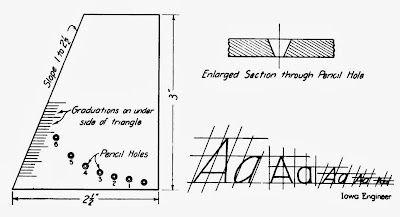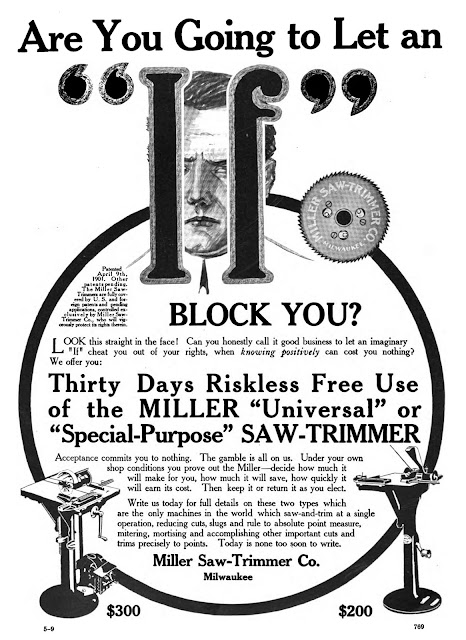
Lettering: 100 Ampersands, Part 1
The Printer and Bookmaker
July 1898
Some Queer Ampersands.
What is the legitimate form of the ampersand? Ringwalt’s American Encyclopaedia of Printing says that it was not adopted in its present form until about 1750. It was originally the Latin et surmounted by a ligature, and the type founders give it to us in Roman in this form (&), and in old-style italic in this form {&). There is a wide difference between the two, and there exists a still wider difference in various display types, while the sign painter takes all sorts of liberties with the figure. The word is a contraction of “and per se and,” signifying “and by itself and.” It is occasionally spelled ampersand, and is found in old books in the form ampusand, amperse-and, ampassyand, amperzed, etc. Having for many years received recognition in primers as a tailend to the alphabet, and being apparently of fixed use in the language, it becomes interesting to discover what forms it has taken on in arriving at its present shape, if indeed it have any present legitimate shape.
From the Railroad Car Journal we unexpectedly find light on the subject, through a contribution from Warner Bailey, whose connection with the Boston and Maine Railroad has caused him to travel over most of the territory between the States of Maine on the East, Kentucky on the South, and Illinois on the West. During these trips Mr. Bailey made it a pastime to copy all the forms of ampersands he saw painted on railway cars. He discovered no less than one hundred and forty different styles, of which there are reproduced in the accompanying illustration one hundred of the most peculiar. They are certainly worth studying as curiosities, and it is difficult to judge by what mental process some of the more outrageous forms were arrived at by the paint-brush artists.
Creator: O.A. Olson, Ames Lettering Guide Inventor
Oscar Anton Olson was born in Norway on December 12, 1883. Olson’s birthplace was found on census records and his birth date was recorded on his World War I draft card. A record of his arrival in the United States has not been found. Who’s Who in American Education (1956) said he was the son of Nels Edward and Louise Annette. According to the Naturalization Record Index at Ancestry.com, Olson became a citizen on October 27, 1884.
In the 1900 U.S. Federal Census, Olson was a servant in the Mickelson household, which consisted of the parents, their four children and a female servant. Mr. Mickelson was a dealer in dry goods and groceries. Apparently, Olson worked for him as a salesman.
Olson attended Iowa State College. The photograph of Olson (left) is from the 1907 yearbook, The Bomb. He graduated in 1908.
Olson has not been found in the 1910 census. Who’s Who in American Education said he married Goldie Payne of Lincoln, Nebraska, on January 23, 1911.
The Iowa State College of Agriculture and Mechanic Arts 1914 named the graduates of June 1914. Olson received a degree in mechanical engineering. According to Who’s Who in American Education, Olson received his masters degree.
The 1915 Iowa State Census recorded Olson and his wife in Ames. He was a draftsman who had four years of high school and four years of college. And he was a Lutheran.
The Iowa Official Register for the Years 1915–1916 had information on Iowa State College. In the category of instructors was “Oscar Anton Olson, B.M.E., Mechanical Engineering.” The State of Iowa 1916, Report of the Iowa State Board of Education said: “Oscar Anton Olson from Instructor to Assistant Professor of Mechanical Engineering.”
On September 12, 1918, Olson signed his World War I draft card. He was an assistant professor in mechanical engineering at Iowa State College. Olson and his wife, Goldie, resided at 617 Clark Avenue in Ames, Iowa. He was described as medium height and build, with brown eyes and hair.
Olson was at the same address in the 1920 census. His occupation was college teacher and he had a four-year-old daughter, Louise.
Five years later, the Iowa state census listed Olson, his wife, two daughters and mother-in-law at 706 Wilson in Ames.
All of them were found in the 1930 census in Ames at a different address, 712 Tenth Street. Olson continued as a college teacher. The 1936 Ames city directory said Olson was the acting head and associate Professor of Engineering Drawing at Iowa Sate College.
The photograph of Olson (above) is from the 1938 Iowa State College yearbook, The Bomb.
Olson’s address was unchanged in the 1940 census. Olson’s job was drawing engineer at the state college. He retired in 1948.
According to the Social Security Death Index, Olson passed away in March 1971. His last known residence was Ankeny, Iowa.
Engineering Design Graphics Journal (1971) reprinted the following article from the Ames Daily Tribune, March 18, 1971.
“One of the many reasons the name ‘Ames’ is known far and wide is a little device developed by O.A. Olson. Called by him the ‘Ames Lettering Guide’ the small instrument probably has been used by nearly every aspiring engineer or draftsman who was ever enrolled in a mechanical drawing class.
“Simple in its design, the device allowed the draftsman to put precisely-spaced lines on his drawing as a guide to the lettering required to identify various parts and the plate itself. For more than half a century, Mr. Olson’s invention has been in widespread general use.
“For many years, the manufacture of the lettering guide was carried on in the basement of his home, and the work of assembling, packing and shipping furnished employment for several generations of college students and student wives.